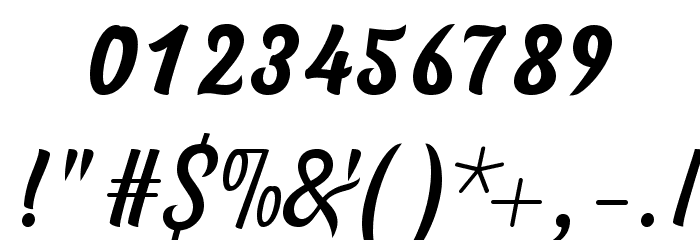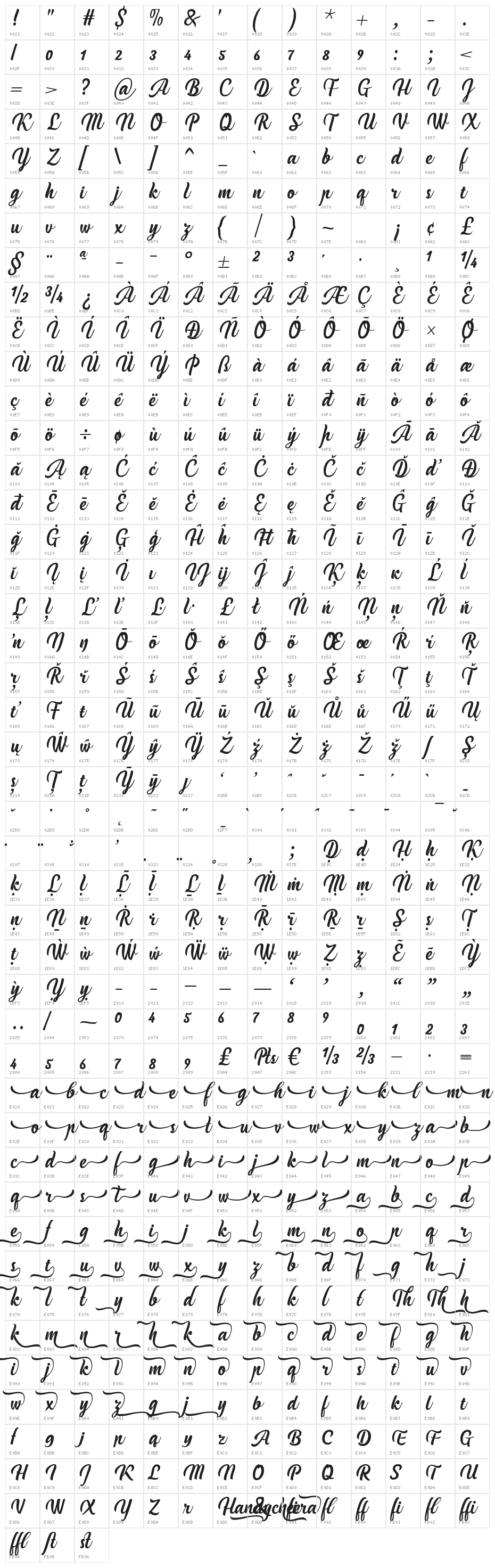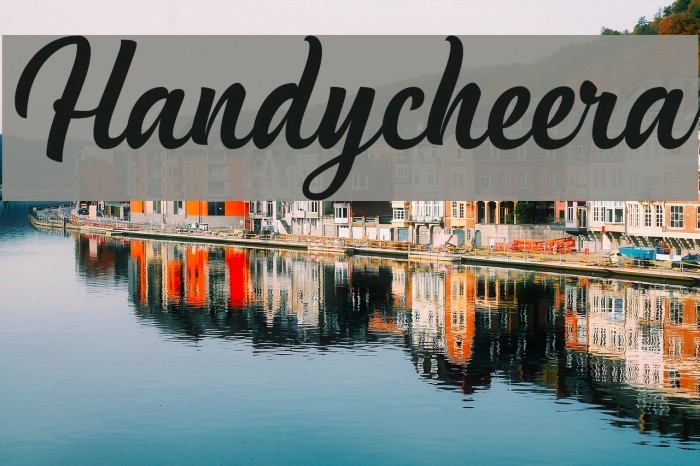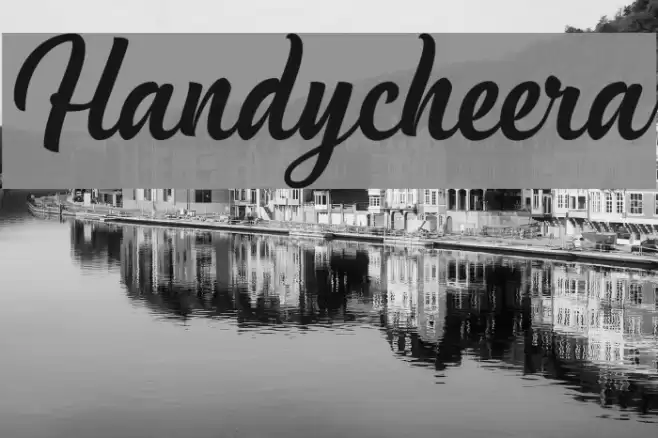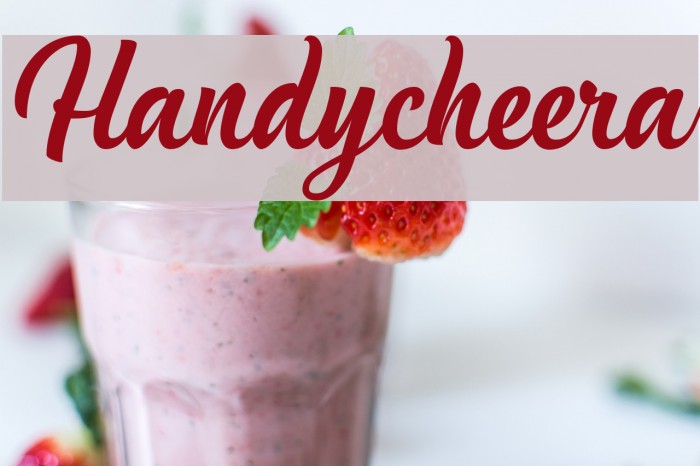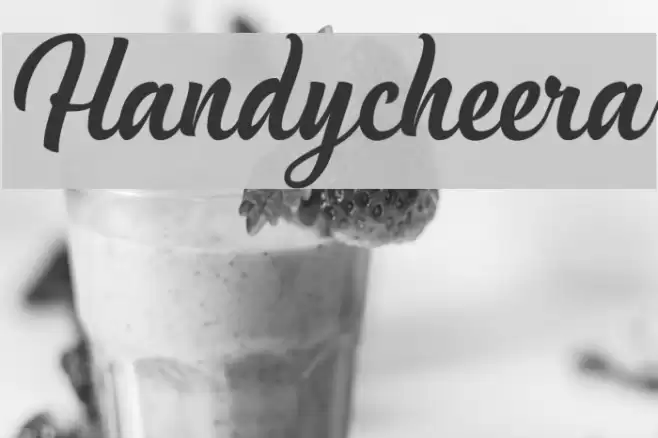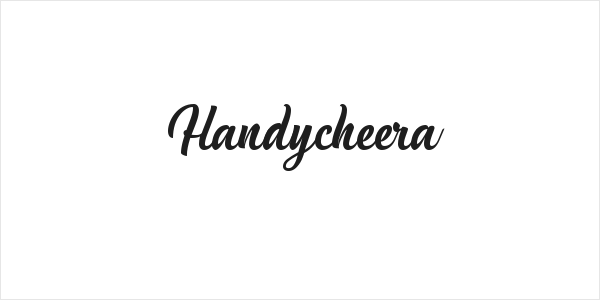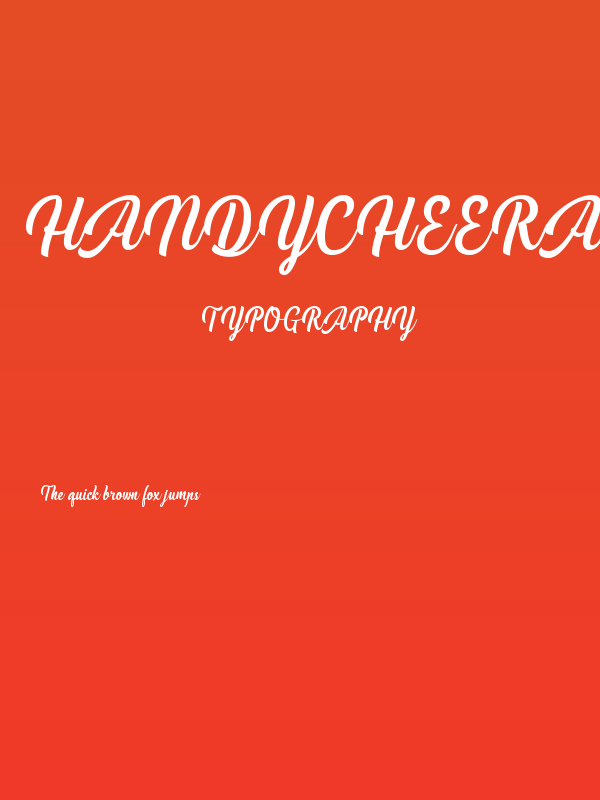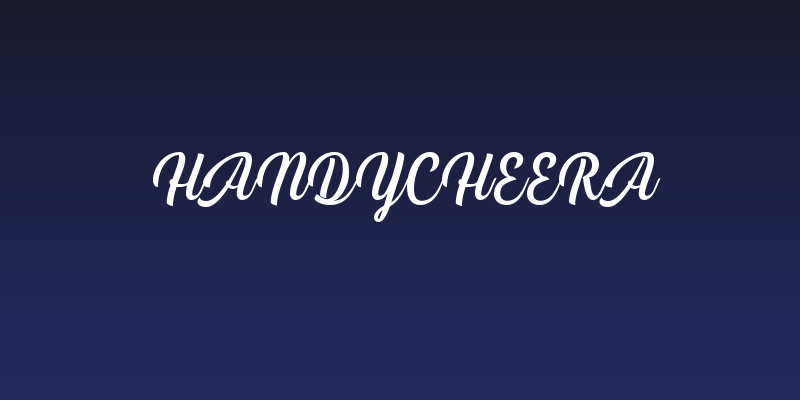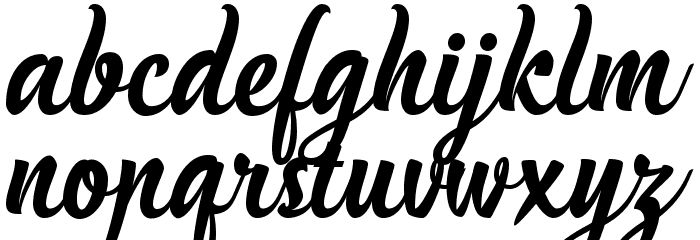
Handycheera Font
Handycheera Description
This font features a bold and expressive script style, characterized by its flowing, cursive letterforms that convey a sense of elegance and dynamism. The uppercase letters exhibit a consistent slant and are interconnected, creating a seamless flow across words. The lowercase letters maintain this fluidity, with some characters extending below the baseline, adding to the font's graceful appearance. The numerals are bold and slightly rounded, complementing the overall style. Special characters are designed to match the script's aesthetic, ensuring a cohesive look. This font's bold strokes and smooth curves make it ideal for projects that require a touch of sophistication and flair.
| Proposed Projects | Ideal for wedding invitations, branding, logos, and elegant packaging designs. |